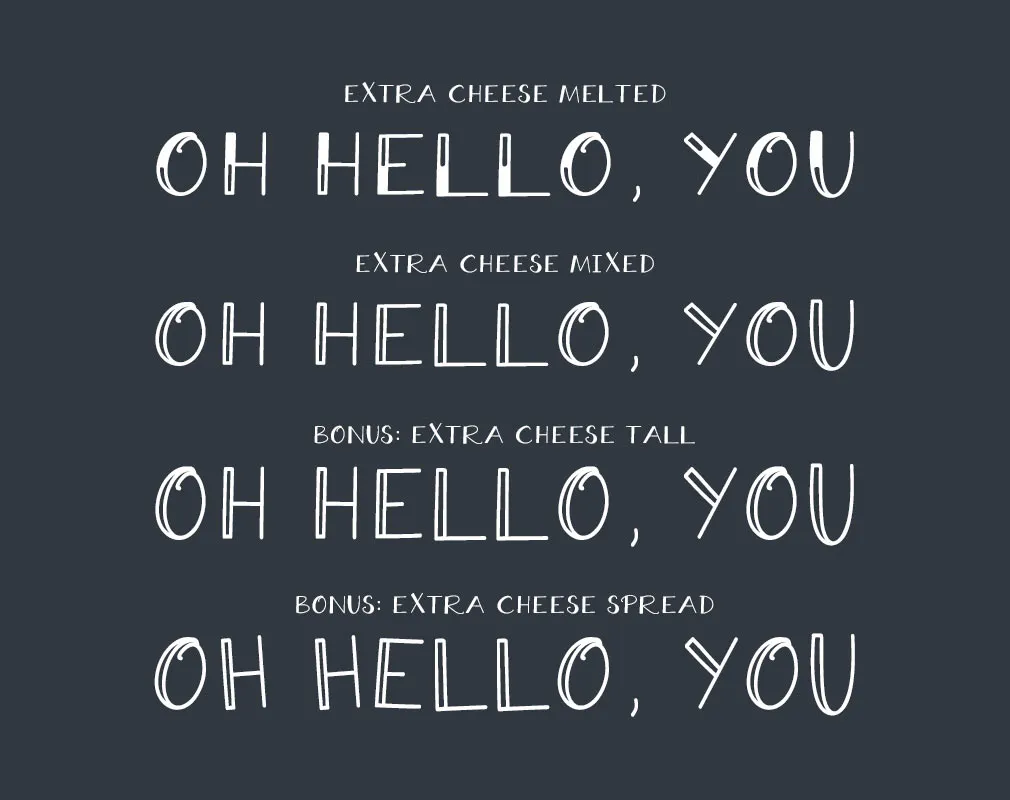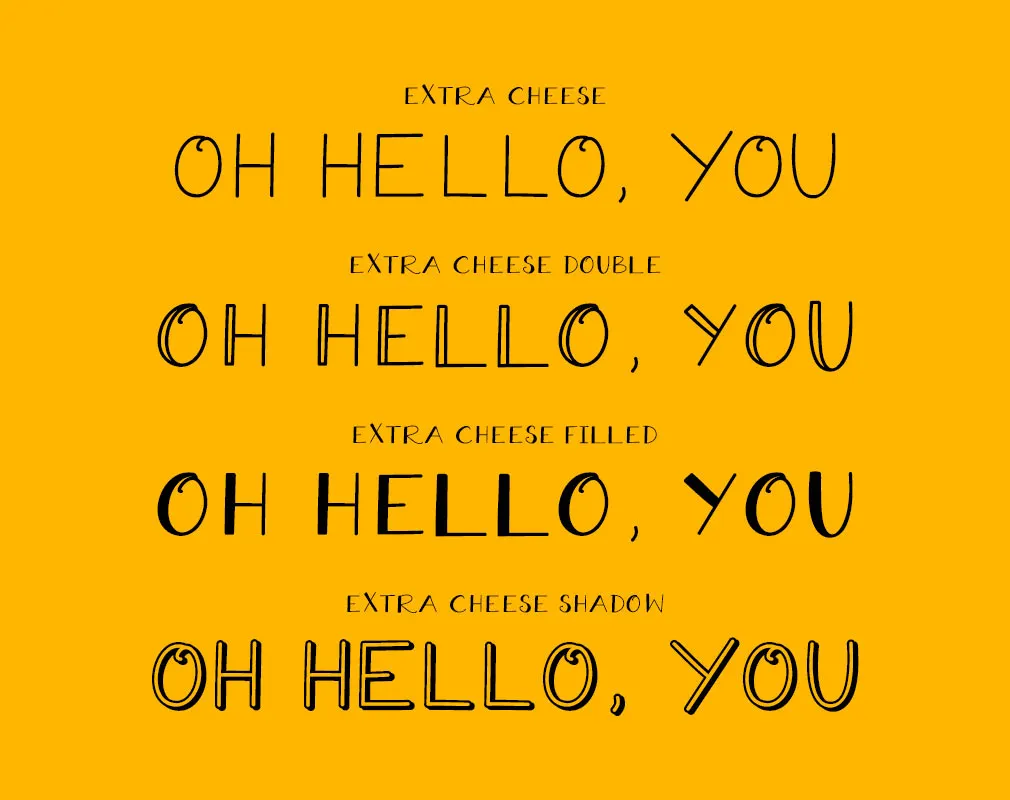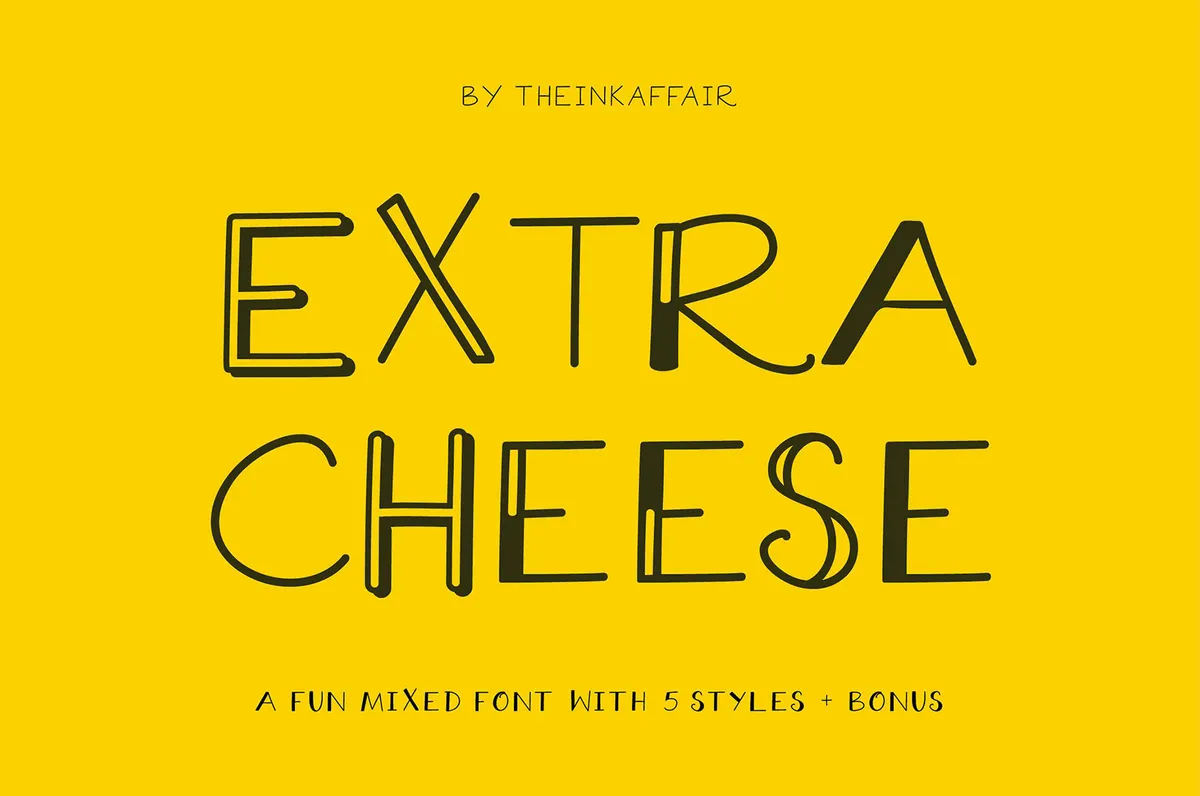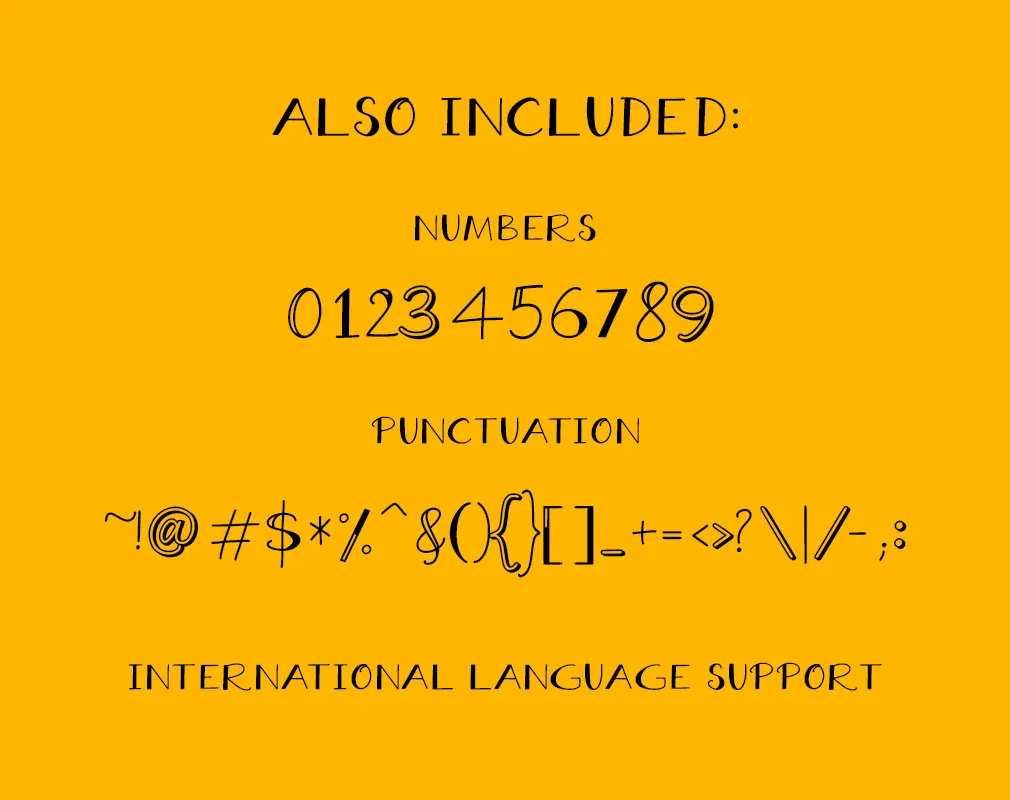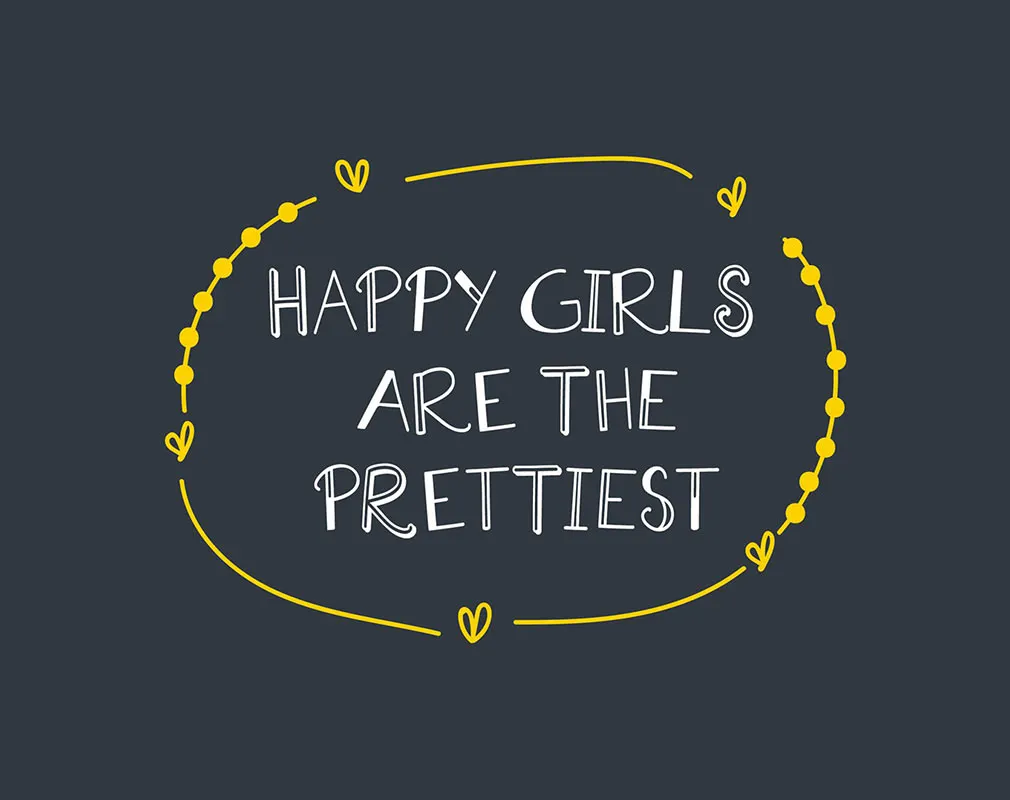
Extra Cheese Font Collection
Give up to the delicious font set, where every symbol already represents a unique independent artwork. Now imagine how many combinations you can create with this typeface!
Youll have 5 distinctive styles at your disposal to choose for your playful design. Mix them with various colors and patterns to reach the degree of joy your project requires. Therere no limits of self-expression: once youve tried this font out, you will try to have the maximum use of it. We guess numerous cards, blog posts, magazine layouts, invitations, ads and apparel deserve to have a nice and clean look.